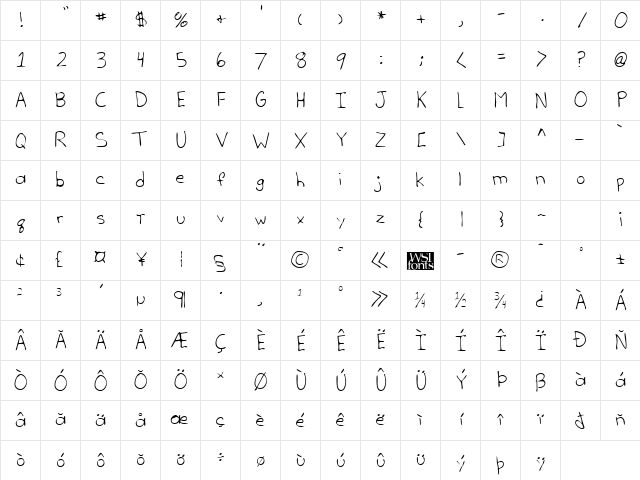
ChelsiesHand Regular Free Font
ChelsiesHand Regular
ChelsiesHand Family
Design Context for ChelsiesHand
ChelsiesHand flows with the natural rhythm of handwritten lettering, making it ideal for designs that call for warmth and personal expression.
Font Pairing: Combine ChelsiesHand with a simple geometric sans for maximum contrast - the tension between flowing curves and clean structure is a classic typographic pairing.
Pro Tip: Use ChelsiesHand for short runs of text - names, titles, or taglines. Extended body copy in script faces tires the eye quickly.